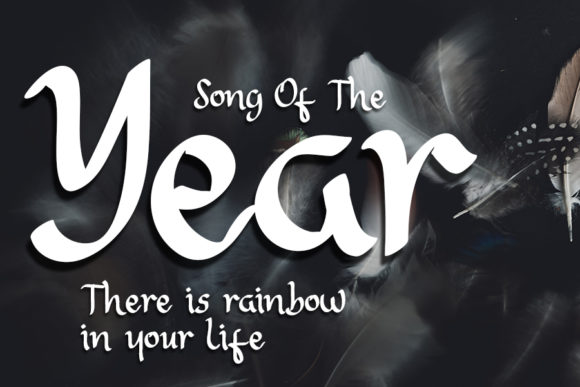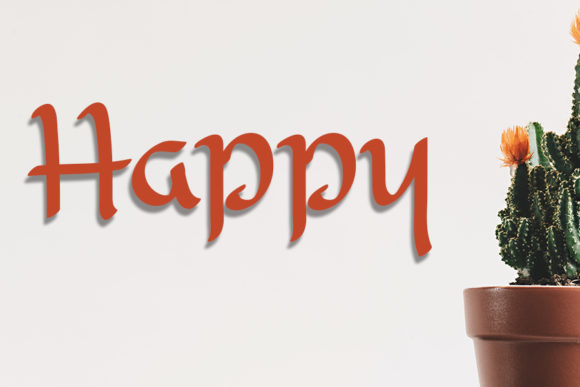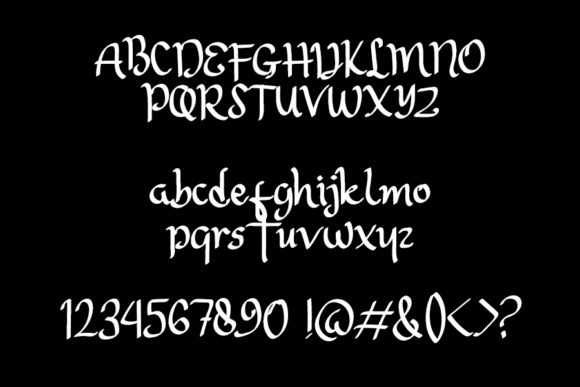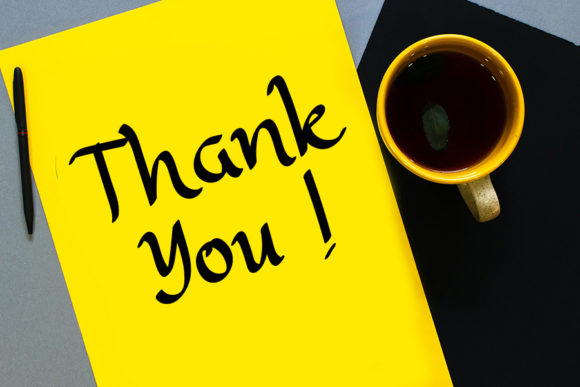
The Elmirates Font: A Modern Handwritten Marvel
I still remember the design project that led me to discover the Elmirates font. I was working on a wedding invitation suite, and my client had a very specific vision: elegant, flowing, and handwritten. I scoured the internet for the perfect font, trying out dozens of options, but none seemed quite right. That was until I stumbled upon Elmirates. Its modern, cursive script immediately caught my eye, and I knew I had found the one.
So, what makes Elmirates so special? Let’s dive into the good stuff:
- ✨ Elegant and refined: Elmirates has a sophisticated feel that’s perfect for wedding invitations, thank you cards, and other formal designs.
- ✅ Versatile: This font works beautifully on a variety of design materials, from logos and business cards to quotes and greeting cards.
- ✨ Easy to read: Despite its flowing script, Elmirates remains highly legible, even at smaller font sizes.
Of course, no font is perfect, and Elmirates has a few minor quirks:
- 🤔 Limited suitability for body text: While Elmirates is stunning in short bursts, it may not be the best choice for longer blocks of text.
- ⚠️ Some letter combinations may require manual adjustment: As with any script font, you may need to tweak certain letter combinations to ensure they look their best.
The Story Behind Elmirates
Elmirates was designed by a talented type designer who wanted to create a font that would evoke the elegance and sophistication of handwritten scripts. With its modern, flowing lines and refined letterforms, Elmirates is the perfect result of this vision.
| Is Elmirates suitable for body text? | While Elmirates is beautiful in short bursts, it’s not typically recommended for longer blocks of body text. Its elegant, cursive script is better suited for headings, titles, and short paragraphs. |